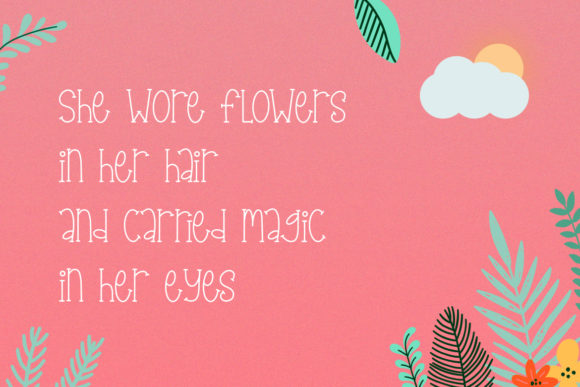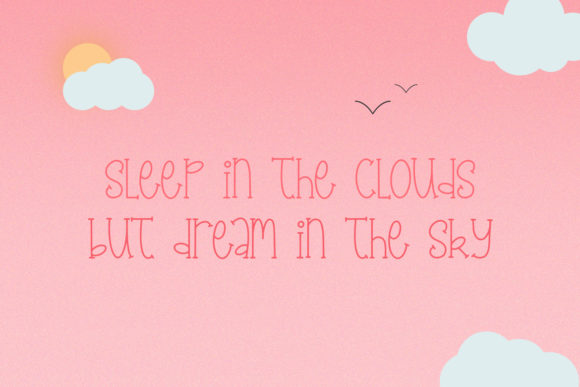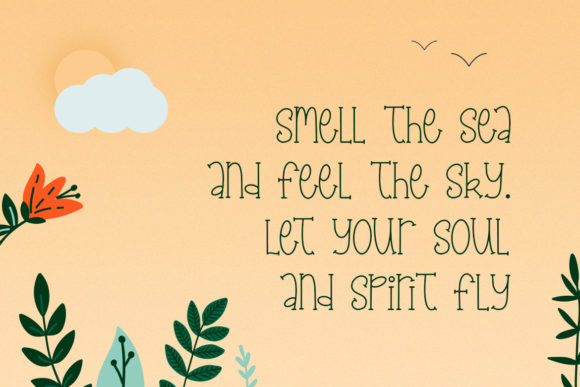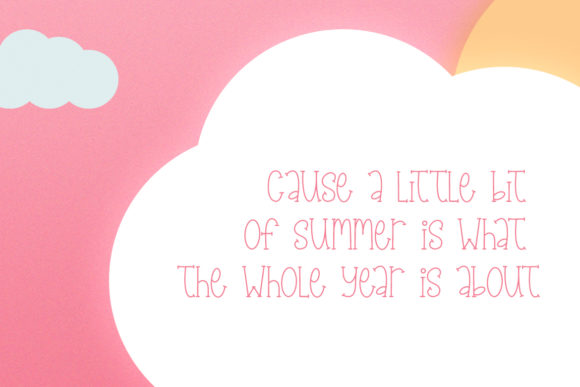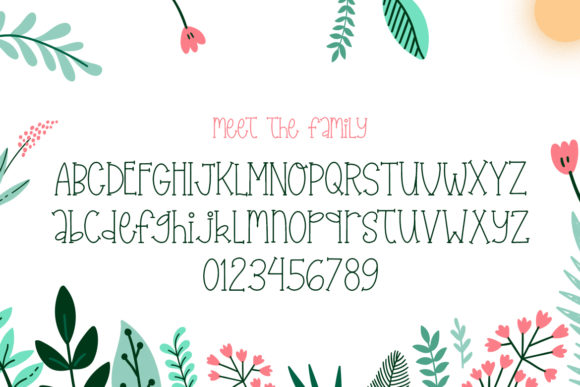
Discover the Charm of Finally Champions Font: A Quirky Serif for Every Design Need
In the vast universe of typography, where fonts are as diverse as the designs they adorn, finding that one perfect typeface which speaks to your creative soul can be a daunting task. However, for those on the lookout for something fresh, unique, and versatile, the Finally Champions font is here to capture your heart. This interesting and quirky serif font is not just another addition to the typography world; it’s a game-changer for designers and crafters alike. With its neat and simple style, Finally Champions has the potential to become your favorite go-to font, no matter the occasion!
The Allure of Finally Champions Font
So, what makes Finally Champions stand out from the sea of fonts available today? The answer lies in its distinctive yet approachable design. This serif font boasts a unique blend of classic elegance and modern quirkiness, making it an excellent choice for a wide variety of design projects. Whether you’re working on a branding project, crafting a bespoke wedding invitation, or simply experimenting with typography for a personal blog, Finally Champions brings a touch of sophistication and whimsy that can elevate your designs to new heights.
One of the most significant advantages of Finally Champions is its incredible versatility. This font isn’t limited to a specific genre or industry; it can seamlessly adapt to various design needs. For instance:
- Branding and Logotypes: The unique serifs and clean lines of Finally Champions make it an excellent choice for logos and brand identities that require a touch of personality.
- Digital and Print Media: Whether it’s for a website, a magazine, or an advertising campaign, this font ensures readability and aesthetic appeal across different mediums.
- Packaging and Product Design: Add a personal touch to your product labels, packaging, or merchandise with a font that stands out yet remains approachable.
- Events and Celebrations: From wedding invitations to event posters, Finally Champions can add a layer of elegance and charm that’s hard to replicate with more conventional fonts.
Why Finally Champions Could Be Your Go-To Font
In a world where design trends come and go, having a reliable font that can adapt to various styles and themes is invaluable. Finally Champions offers:
- Legibility: Despite its quirky nature, this font maintains high legibility, making it suitable for both headings and body text.
- Uniqueness: Stand out from the crowd with a font that brings a fresh perspective to your designs.
- Simplicity: Its neat and simple style ensures that your designs remain uncluttered and focused, allowing your message to shine through.
- Pairing: Try pairing it with other fonts to create a unique typography scheme. Its versatility makes it a great candidate for pairing with both serif and sans-serif fonts.
Finally Champions font is more than just a quirky serif typeface; it’s a design companion that can bring your creative visions to life. Its blend of elegance, simplicity, and uniqueness makes it an invaluable asset for designers and crafters looking to add a personal touch to their work. Whether you’re a seasoned professional or a hobbyist, Finally Champions has the potential to become your go-to font for projects that demand a bit of character and a lot of charm. So, why wait? Explore the possibilities with Finally Champions and discover a new favorite font to elevate your designs.